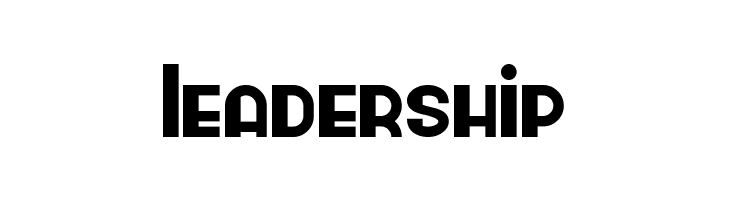
A playful, handwritten font with a casual and informal style.
A playful handwritten font with uneven strokes and a casual style.
A bold, hand-painted style font with dynamic brush-like strokes.
A whimsical, hand-drawn font with playful and irregular strokes.
A playful, casual handwritten font with uneven strokes and a whimsical style.
An elegant, high-contrast font with modern and classic elements.
A flowing, cursive script font with elegant, interconnected characters.
A whimsical, handwritten script font with playful loops and a festive feel.
A charming, handcrafted typewriter-style font with a vintage feel.
A hand-drawn, casual font with a playful, handwritten style.
A diverse illustrated hand gesture font with cartoon and realistic styles.
A playful, whimsical font with hand and foot elements in each character.
An artistic and illustrative font with unique hand-drawn characters.
A decorative font featuring diverse hand gesture illustrations.
A display font made up of various hand illustrations representing each character.
A whimsical display font made up of diverse hand gesture illustrations.
A bold, decorative blackletter font with intricate, angular letterforms.
A bold, classic blackletter font with intricate and dramatic strokes.
A playful, bold handwritten font with rounded strokes and an informal style.
A hand-drawn, sketch-style font with textured outlines.
A slim, handwritten font with an organic and personal touch.
A bold, playful handwritten font with thick, rounded strokes.
An elegant, flowing script font with graceful cursive letterforms.
A bold, textured handwritten font with a dynamic and energetic style.
A bold, geometric font with a modern, industrial aesthetic.
A playful, handwritten font with a casual and friendly appearance.
A decorative font with letters framed as if hanging on a wall.
A playful font with characters enclosed in rectangular frames, featuring consistent stroke thickness and a whimsical tilt.
A bold, distressed font with a rugged, vintage appearance.
A bold, angular font with a modern, edgy style.
A clean, modern sans-serif font with uniform stroke width and balanced character spacing.
Bold, rounded characters within black squares for a playful, modern look.
A stylish and elegant script font with flowing, connected letterforms.
A dynamic, handwritten font with expressive, flowing strokes.